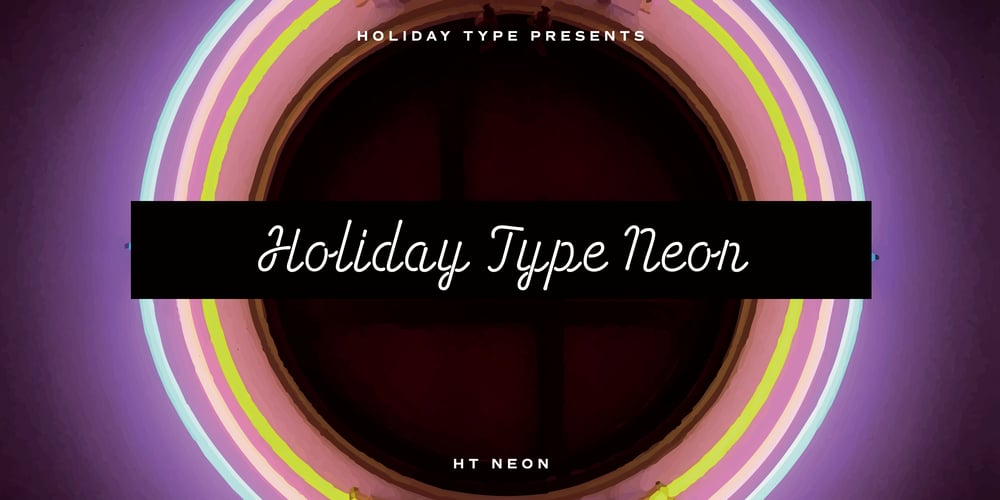
HT Neon
HT Neon font
HT Neon Font Family was designed by Ryoichi Tsunekawa and published by Dharma Type. HT Neon contains 1 styles and family package options. HT Neon shines as if to invite us.This rounded and monoline font is very striking. But it is readable because the characters are arranged naturally when they are typed. HT Neon is great to use on your design projects such as Shop Sign,Packaging, Logotype and more.When you type the character “µ”, it becomes a electrical cord! Holiday Type Project offers retro hand drawing scripts. Inspired by retro script on shopfront lettering, wall paint advertisements in Italy around 1950s. Check out the script fonts from Holiday Type!